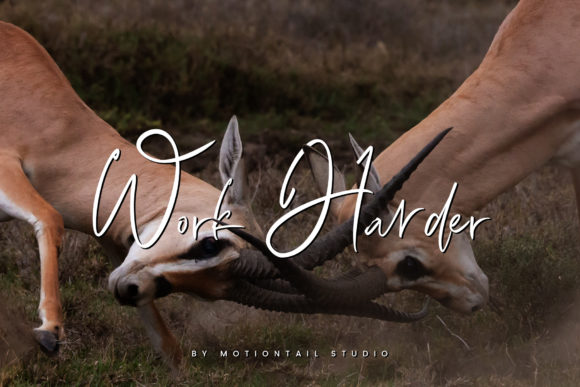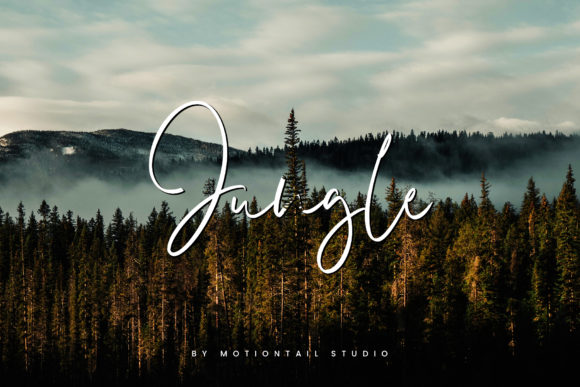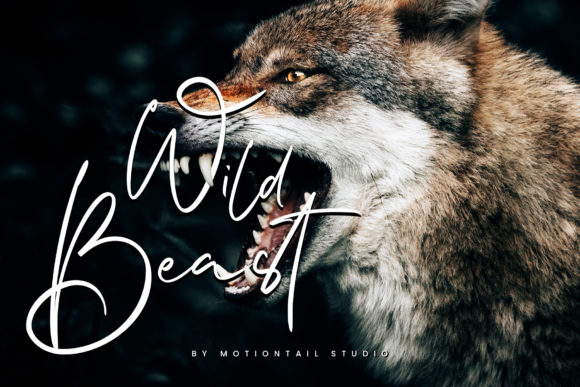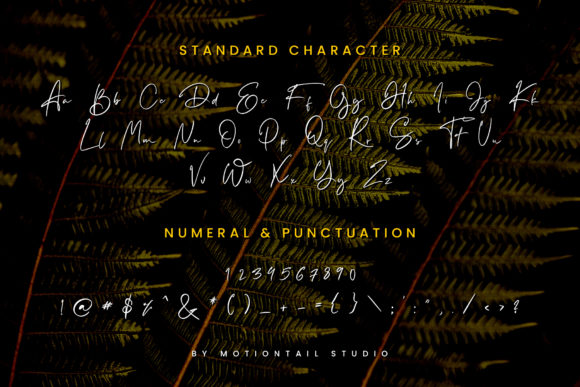
About Zoothopia Font
Zoothopia is a timeless and relaxed handwritten font. It is PUA encoded which means you can access all of the glyphs and swashes with ease! Dainty and joyful, this font will be ideal for writing wedding invitations, cards or any other design that may need a romantic, personalized touch!